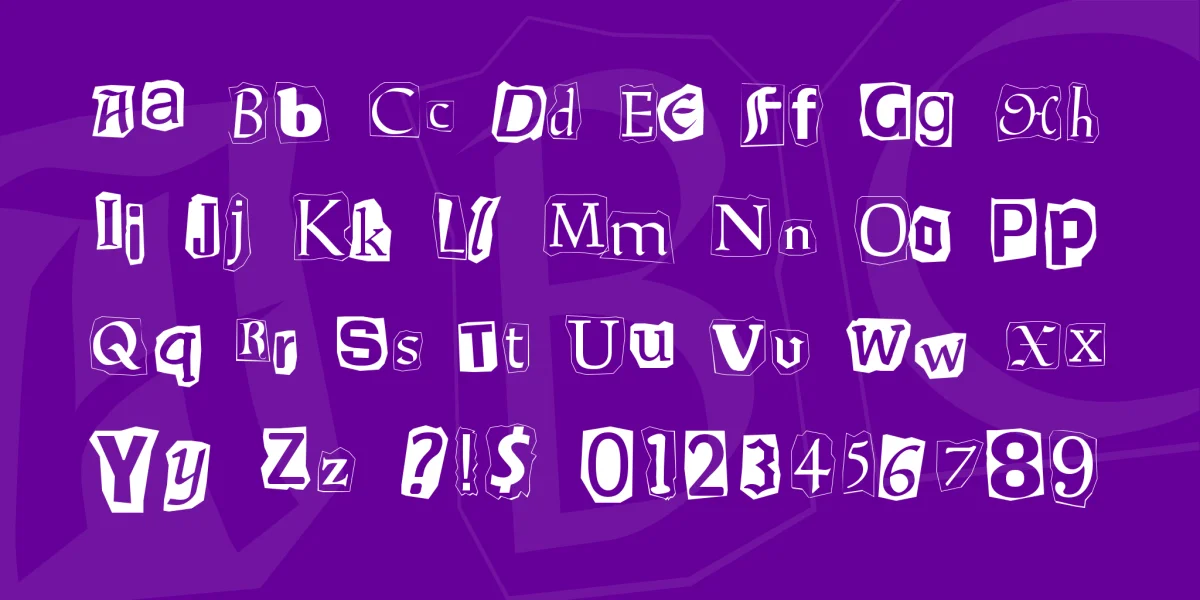
(Caps, lower, numbers, some punctuation) is a ransom-note type font, made up of at least 20 type faces in both regular and inverse. Excellent for headlines and for actual ransom notes, but really shouldn't be used for text.